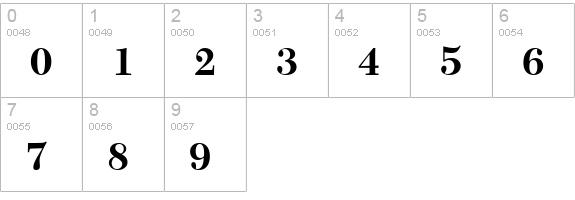
Tycoon Black SSi Bold is a maximum-weight, dramatic variant in the Tycoon typeface family \xE2\x80\x94 well suited to maximum-impact headlines, posters, and packaging.